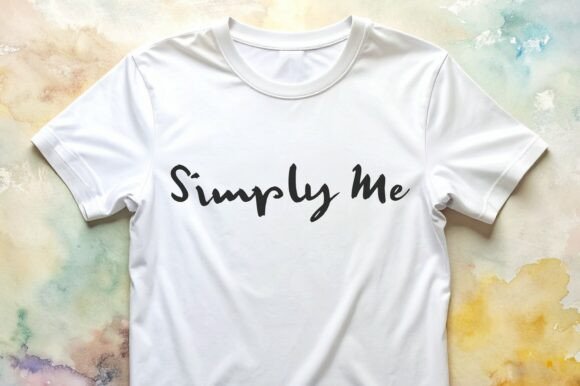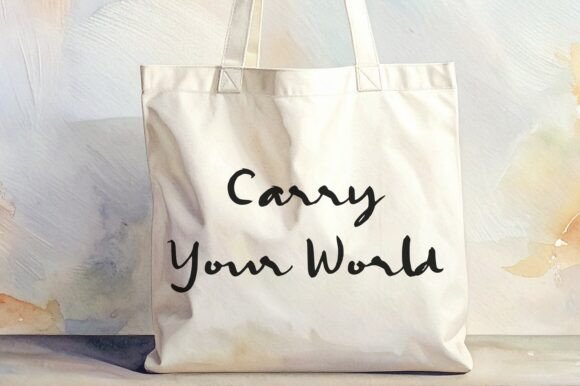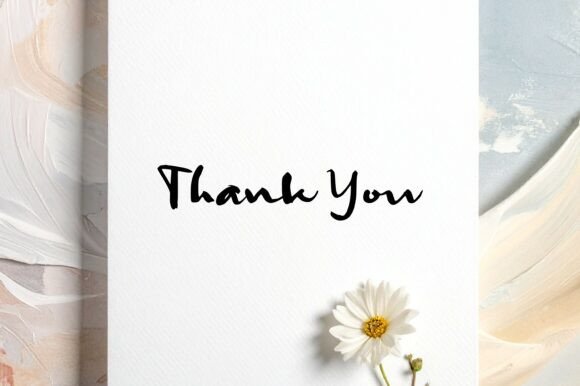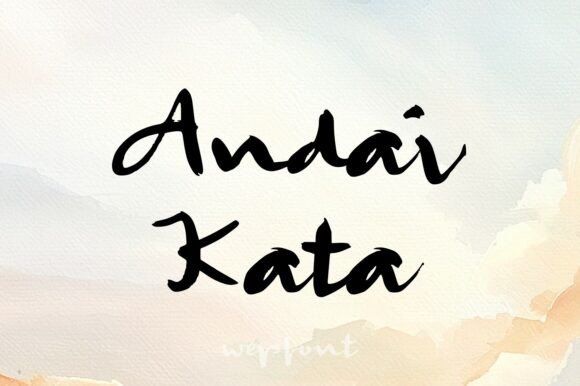
Unlocking the Power of Emotional Expression: A Deep Dive into Andai Kata Font
In the realm of typography, few fonts manage to capture the essence of raw, poetic energy as effectively as the Andai Kata font. This bold brush script is not just a typeface; it’s an expression of emotion, a reflection of the human touch, and a bridge between traditional craftsmanship and modern design. With its heavy ink textures and spontaneous strokes, Andai Kata brings to the table a level of authenticity and expressiveness that is hard to find in digital fonts.
The Essence of Andai Kata: A Brush Script Like No Other
Andai Kata is more than just a collection of letters; it’s a symphony of brush strokes, each one telling a story of its own. The font’s design is inspired by authentic hand-painted calligraphy, giving it a deeply personal and emotive feel. The heavy ink textures and spontaneous strokes are a testament to its handcrafted origins, making each word and sentence feel like a piece of art. This level of detail and expressiveness makes Andai Kata the perfect choice for designers and crafters looking to add a touch of soul to their projects.
Applications of Andai Kata: Where Emotion Meets Design
The versatility of Andai Kata is one of its most compelling features. This font can breathe life into a wide range of design projects, from emotive book covers and inspirational social media quotes to organic product branding and personalized stationery. Its bold presence ensures that your message is not just seen but felt, carrying both weight and beauty. For instance, using Andai Kata for a book cover can instantly convey the emotional depth and narrative complexity of the story within. Similarly, incorporating it into social media quotes can make them more impactful and shareable.
Pairing Andai Kata with Other Design Elements
One of the keys to maximizing the impact of Andai Kata is in its pairing with other design elements. The font pairs beautifully with soft watercolor backgrounds, which complement its heavy ink textures and add a layer of depth and emotion to the design. Minimalist serif fonts also make excellent pairings, providing a balanced contrast that ensures the expressive qualities of Andai Kata stand out without overwhelming the viewer. This balance is crucial in creating a visually appealing and artistically cohesive look.
Bringing Soul and Craftsmanship to Your Projects
In today’s fast-paced digital world, where automation and uniformity often prevail, Andai Kata offers a refreshing alternative. It allows designers and crafters to infuse their projects with a sense of soul and craftsmanship, making each piece feel more personal and unique. Whether you’re working on lifestyle photography watermarks, organic product branding, or any other creative project, Andai Kata can help you achieve a level of authenticity and emotional connection that sets your work apart.
Tips for Using Andai Kata Effectively
• Experiment with Sizes: Andai Kata’s impact can vary dramatically with size. Use it large for bold statements or smaller for more subtle, personal touches.
• Play with Colors: The font’s heavy ink textures can mimic various colors. Experiment with different hues to find the perfect match for your design’s mood.
• Mix and Match: Don’t be afraid to combine Andai Kata with other fonts and design elements. Its versatility makes it a great candidate for mixed-font designs.
Font Name Andai Kata Font
Author wep – Wahyu Eka Prasetya
Andai Kata font is a powerful tool in the world of design, offering a unique blend of raw, poetic energy and emotional expressiveness. Its authentic, hand-painted feel makes it an excellent choice for designers and crafters looking to add a personal touch to their projects. By incorporating Andai Kata into your designs, you’re not just choosing a font; you’re embracing a form of artistic expression that can elevate your work to new heights. Whether you’re creating emotive book covers, inspirational quotes, or organic product branding, Andai Kata is sure to bring a touch of soul and craftsmanship to your creations.